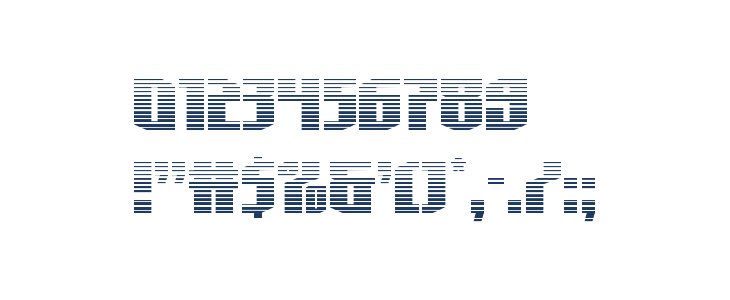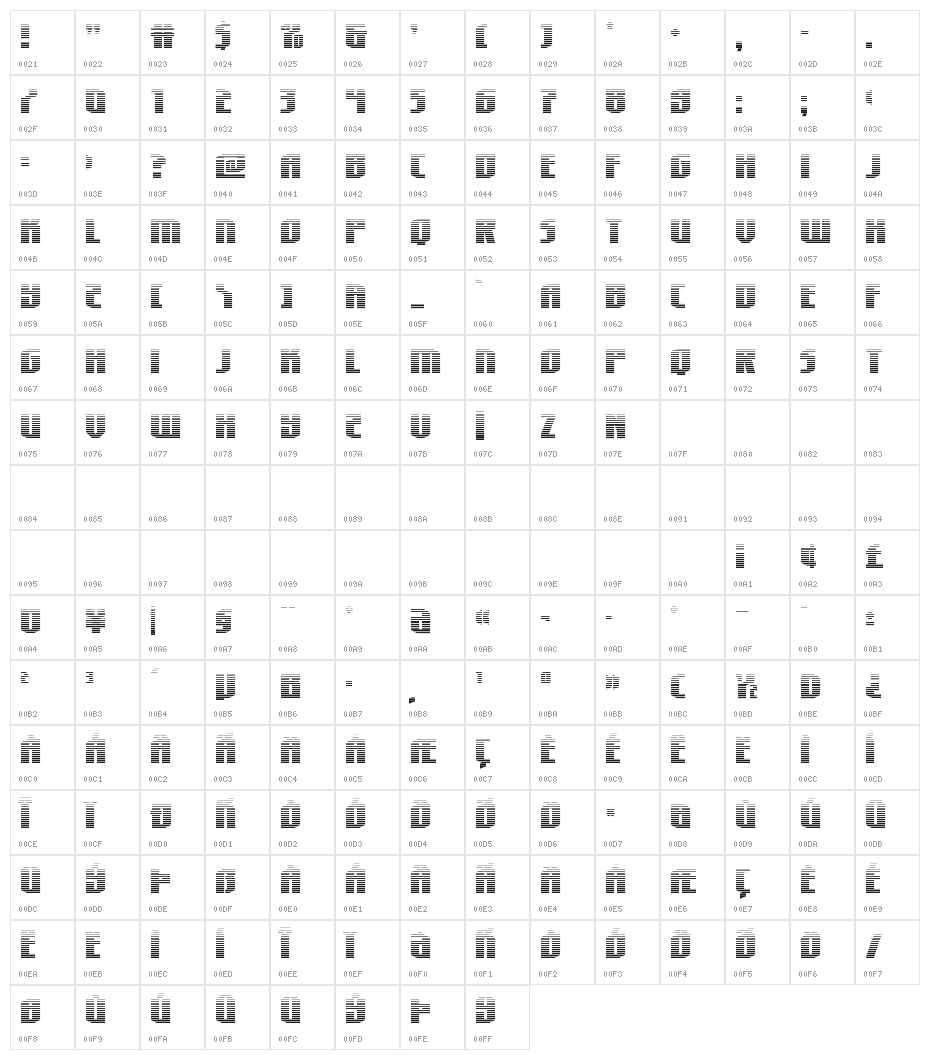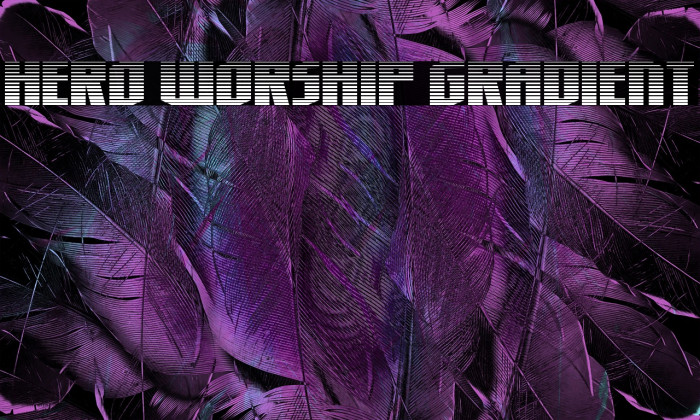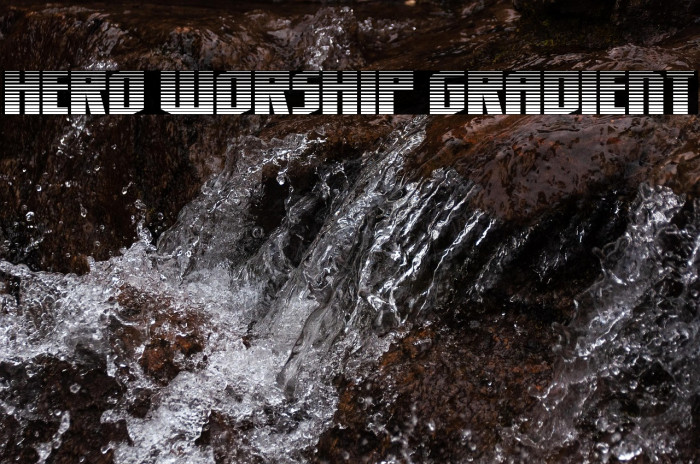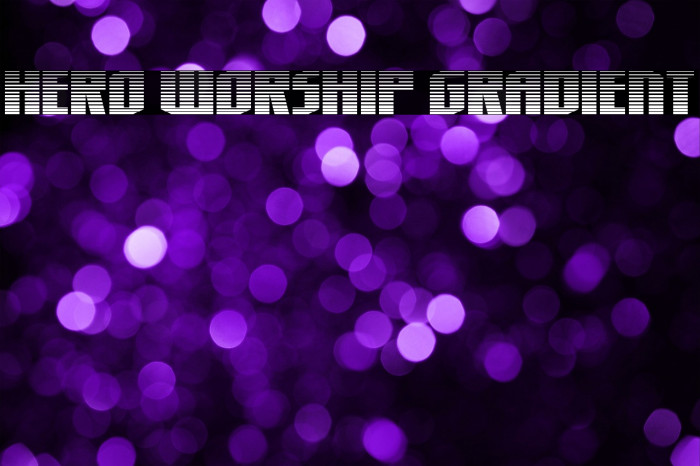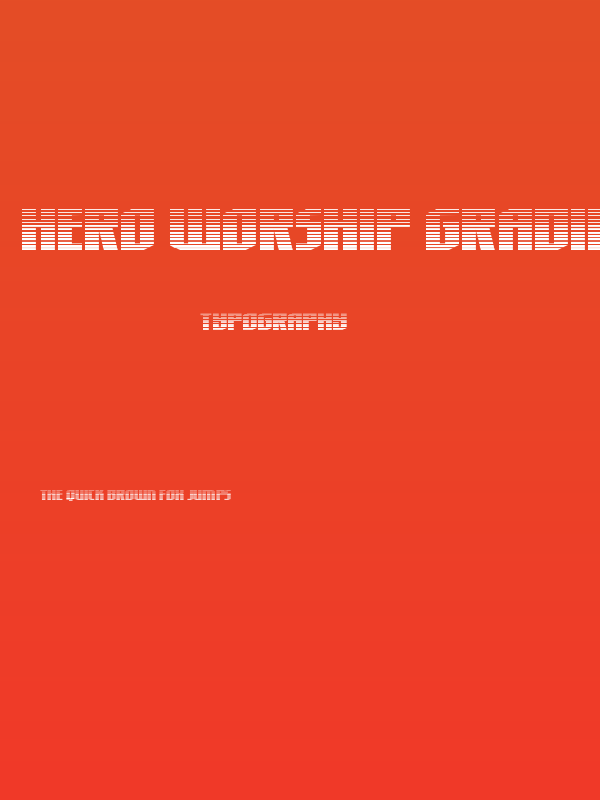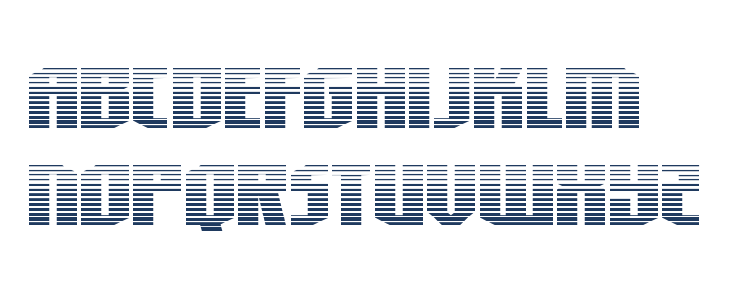
Hero Worship Gradient Font
Hero Worship Gradient Description
This font features a bold, modern design with a unique gradient effect created by horizontal lines of varying thickness. The characters are uppercase and lowercase letters, numbers, and a selection of special characters. Each character is composed of parallel lines that create a sense of depth and movement, making it stand out in any design. The font's distinct style is both eye-catching and versatile, suitable for a variety of creative projects. Its structured appearance is balanced by the playful gradient effect, offering a dynamic visual experience.
| Proposed Projects | Ideal for posters, album covers, branding, and digital media where a striking, modern look is desired. |